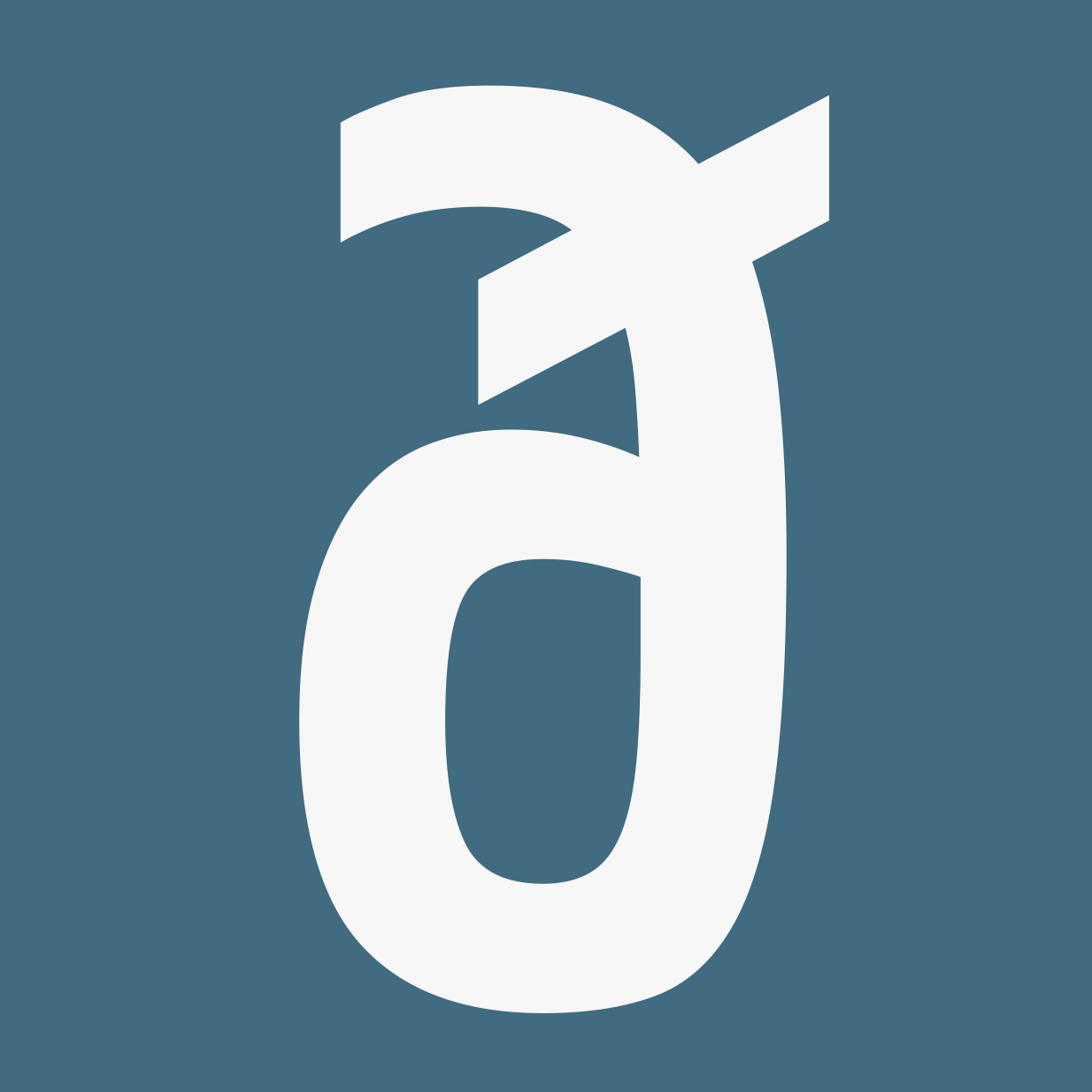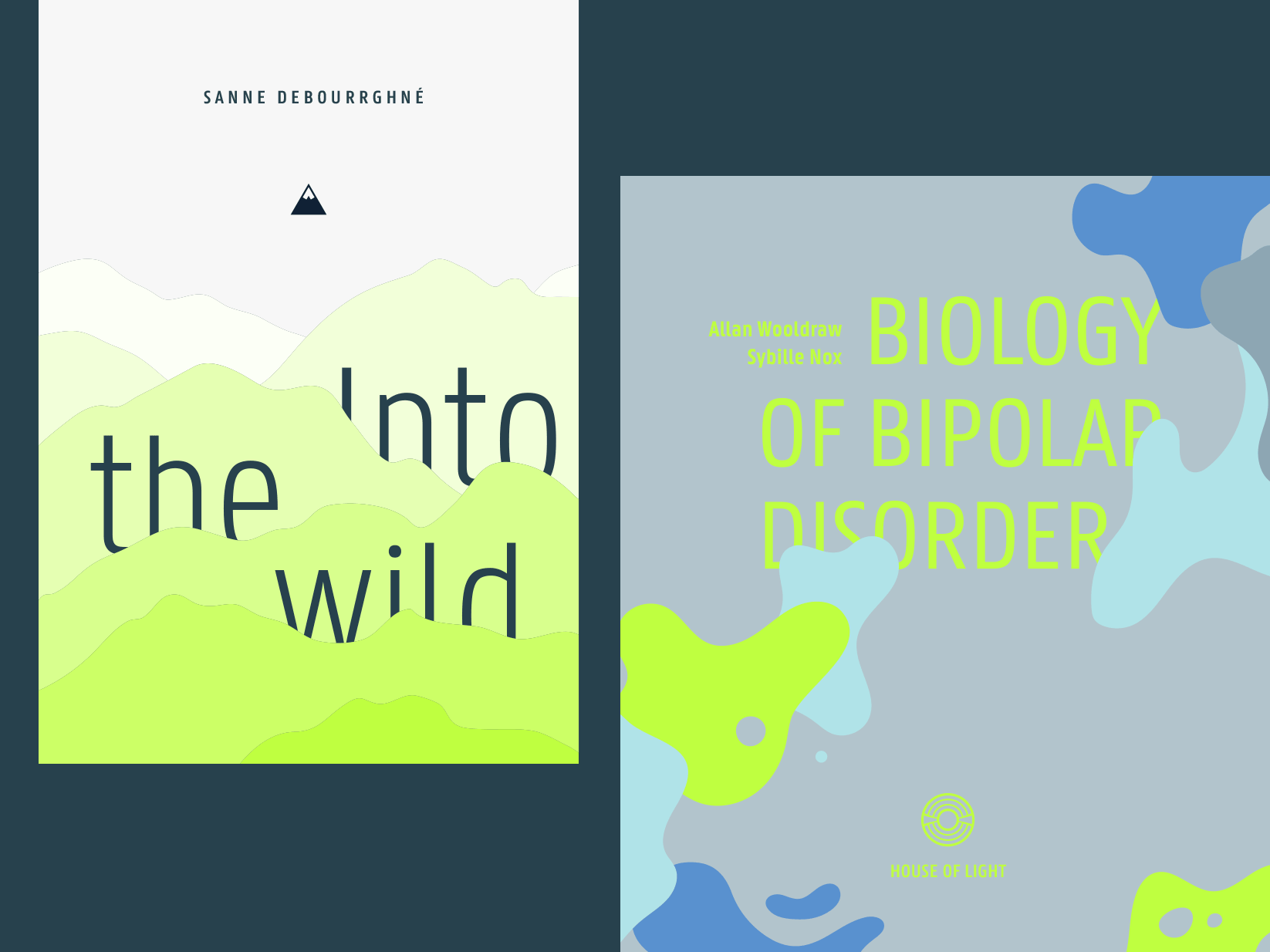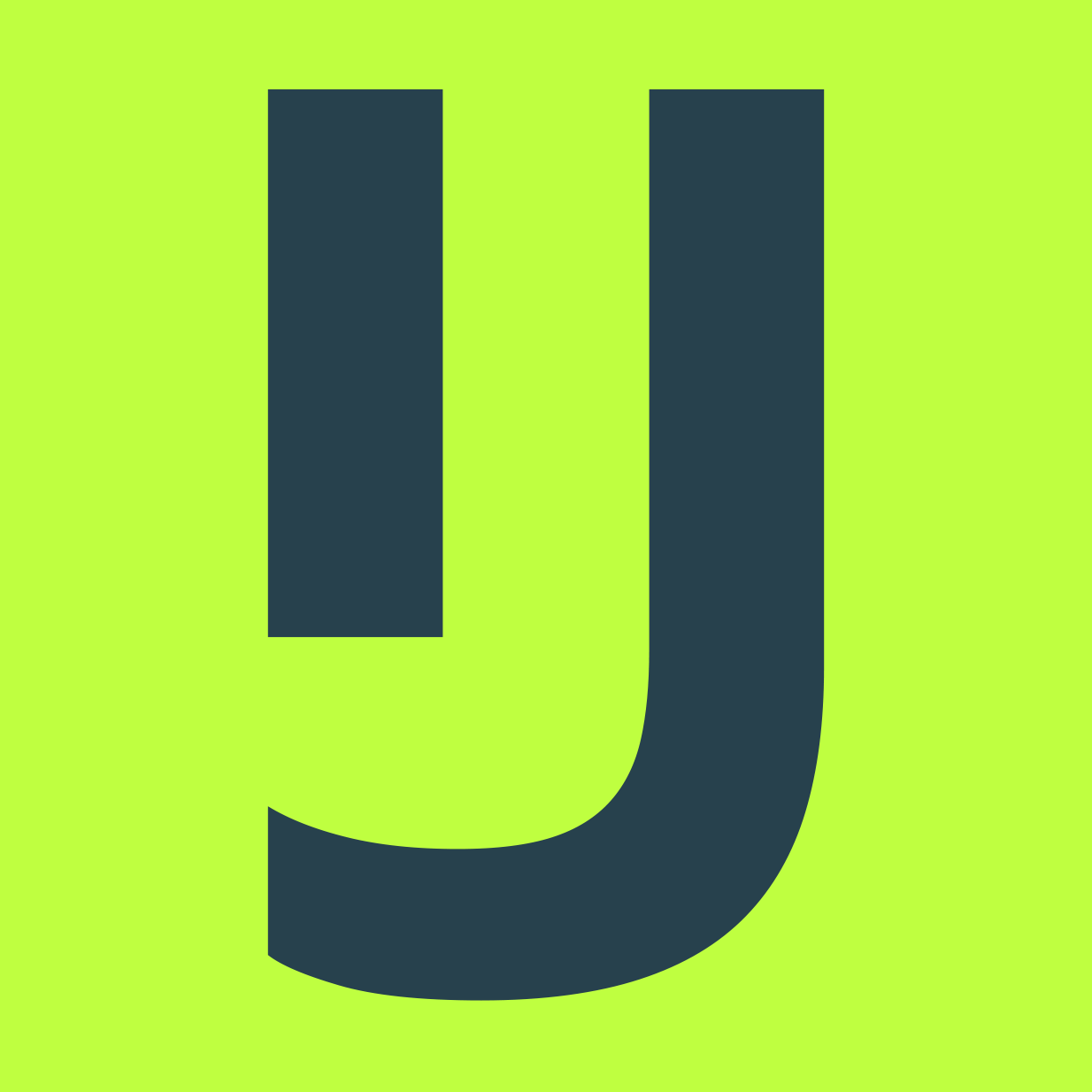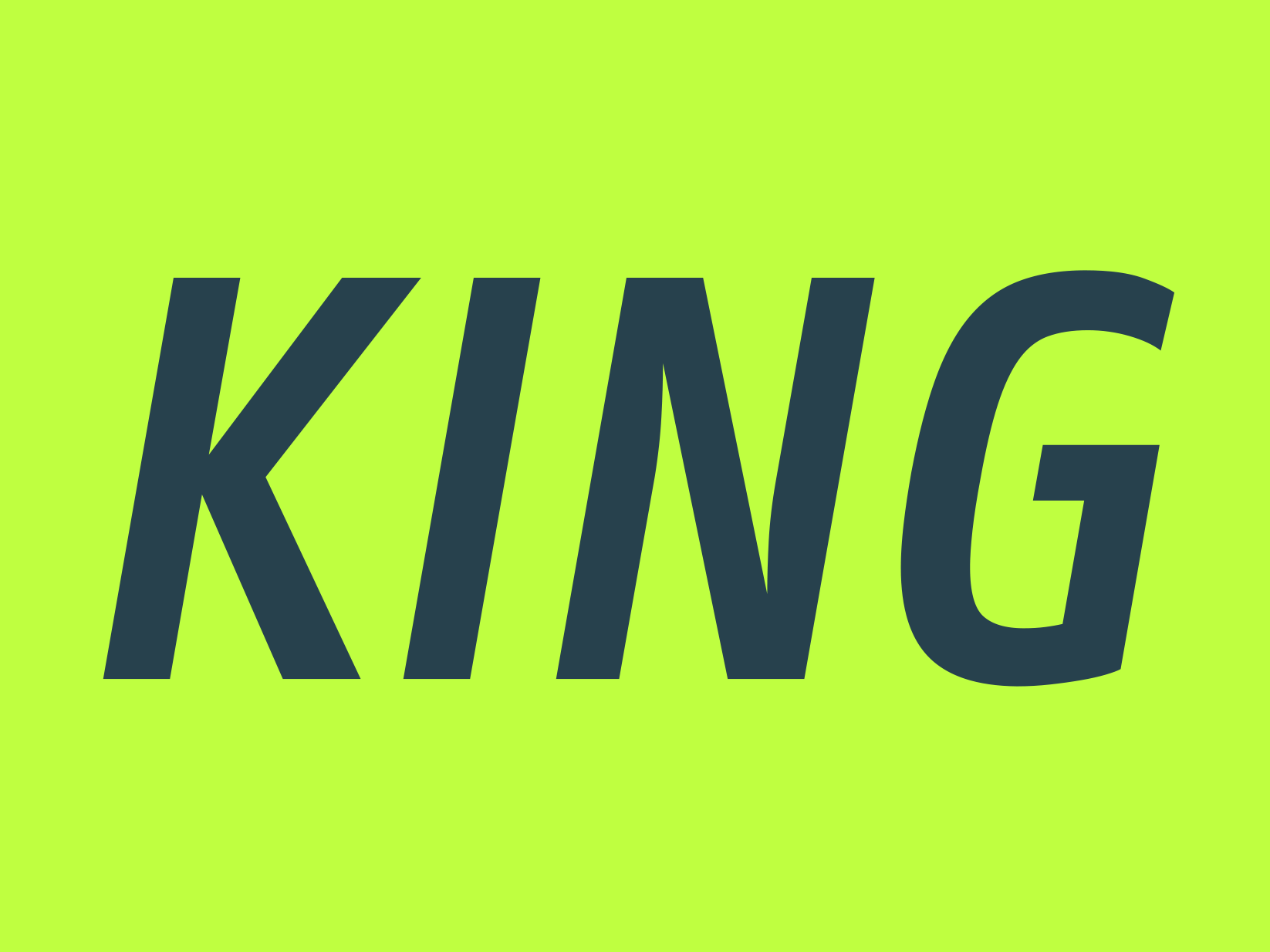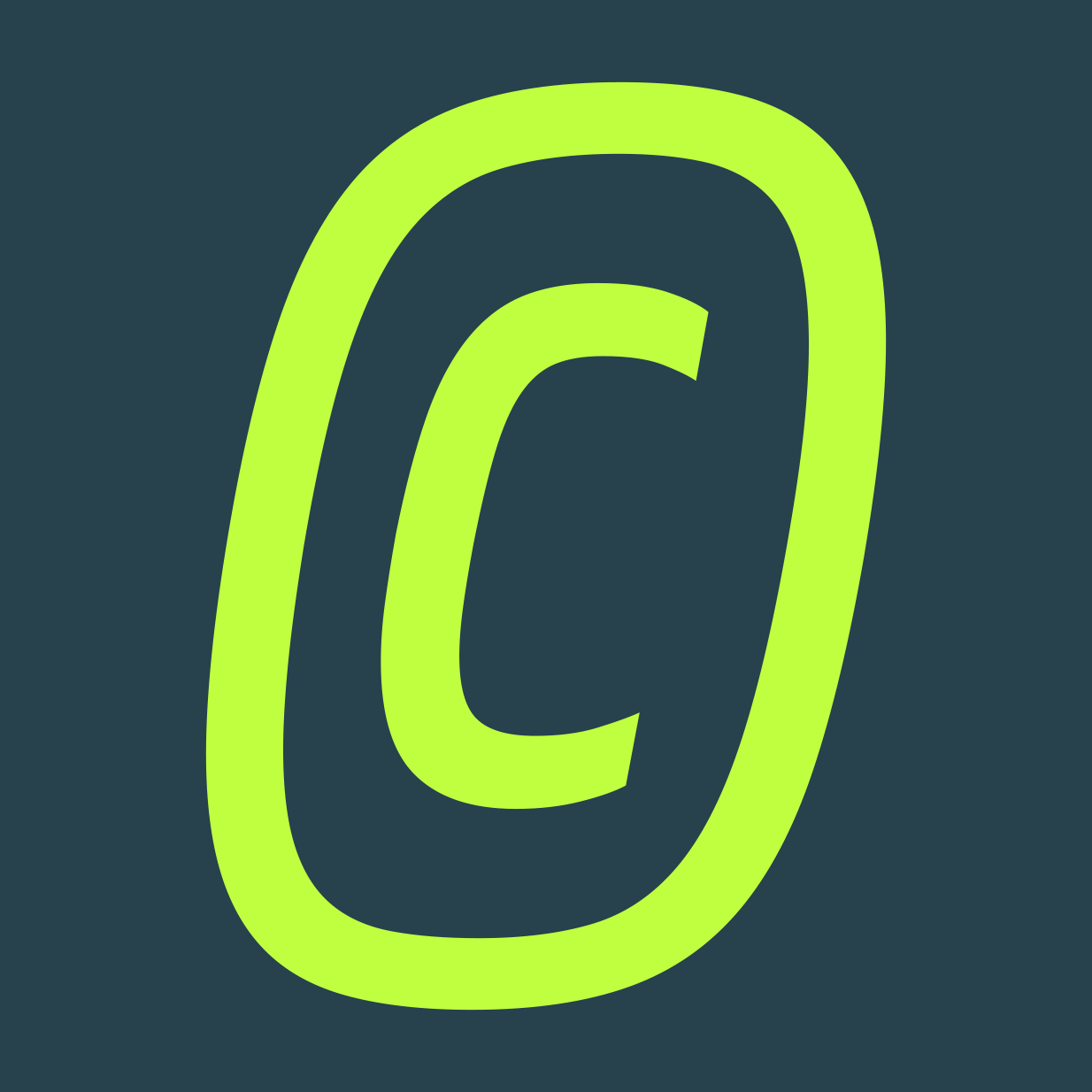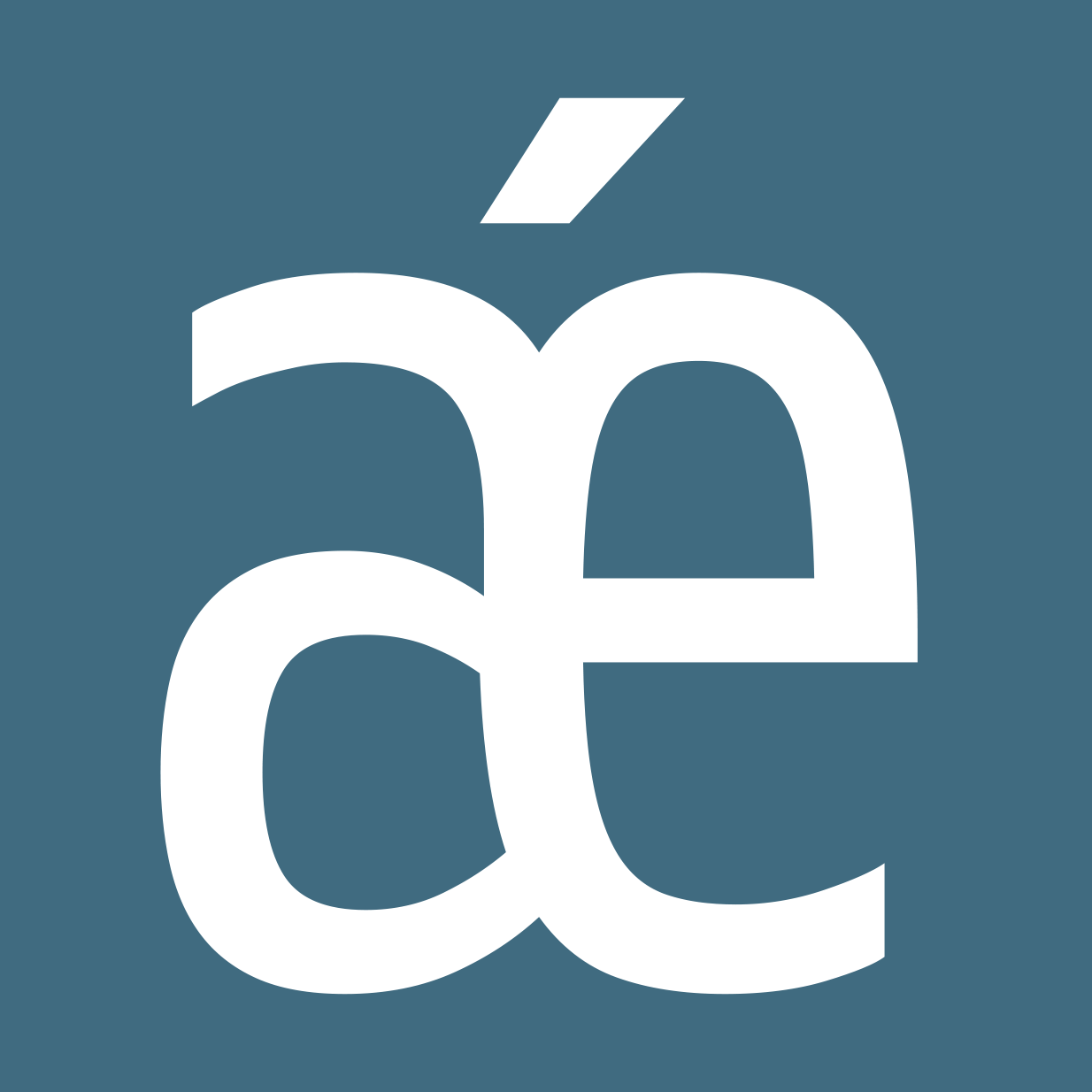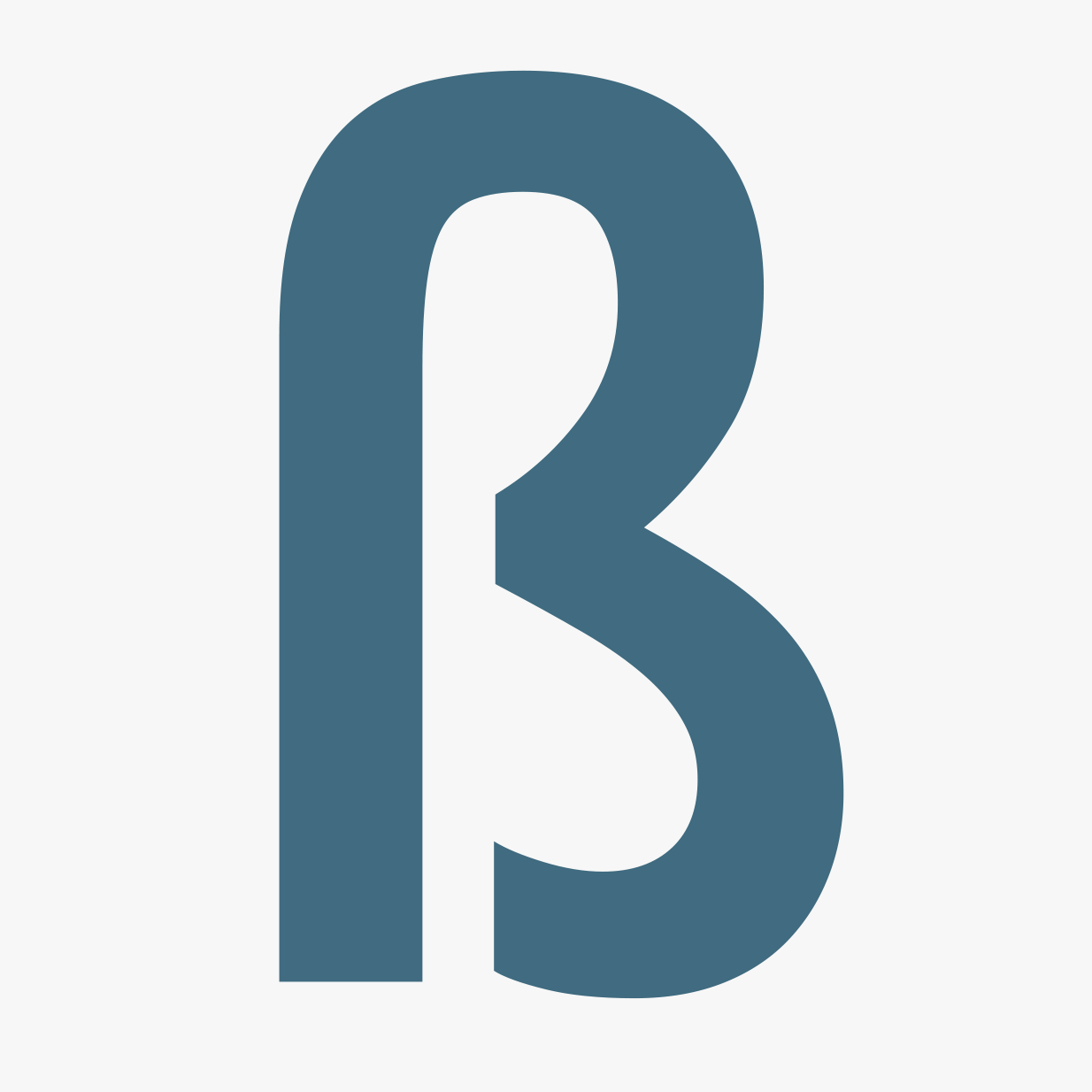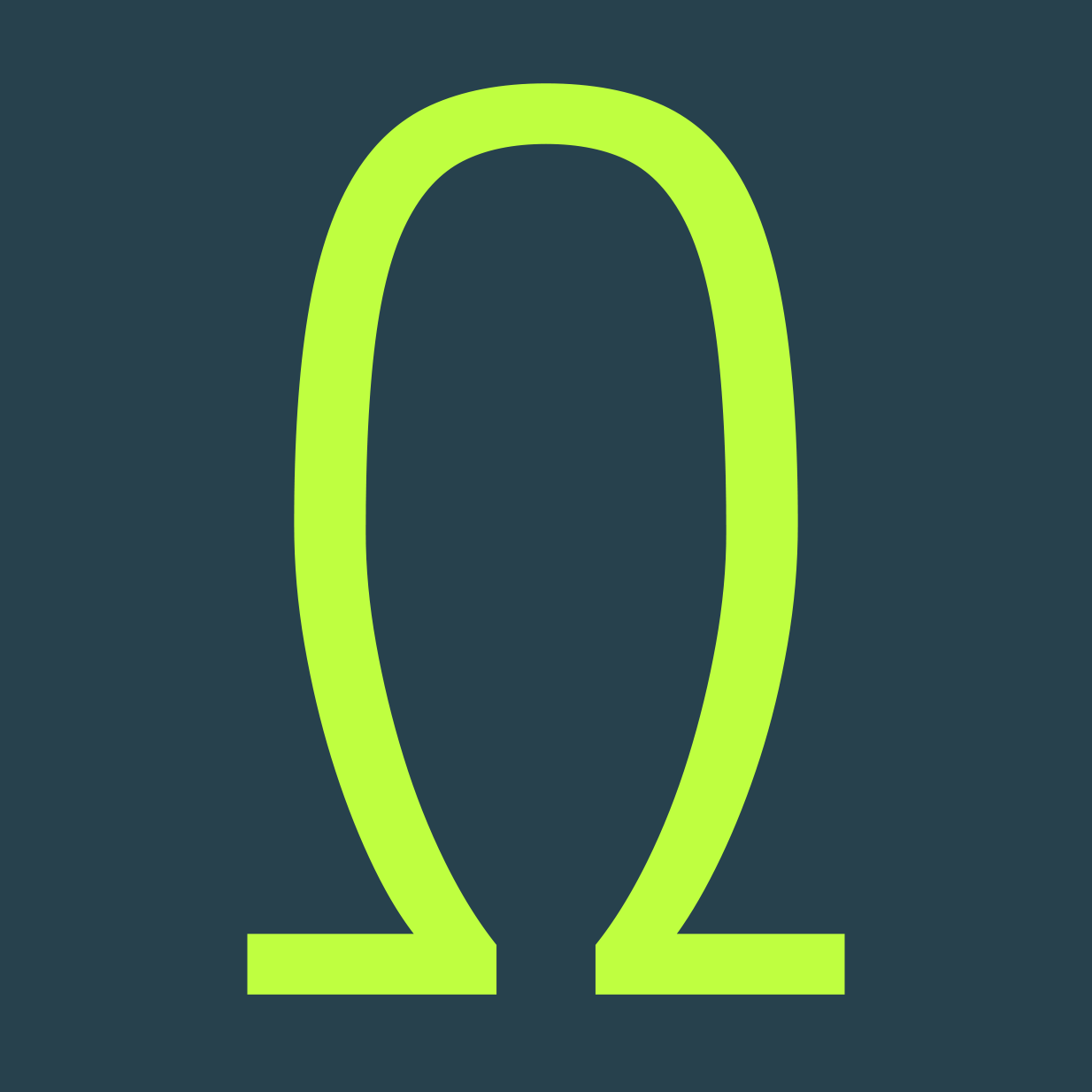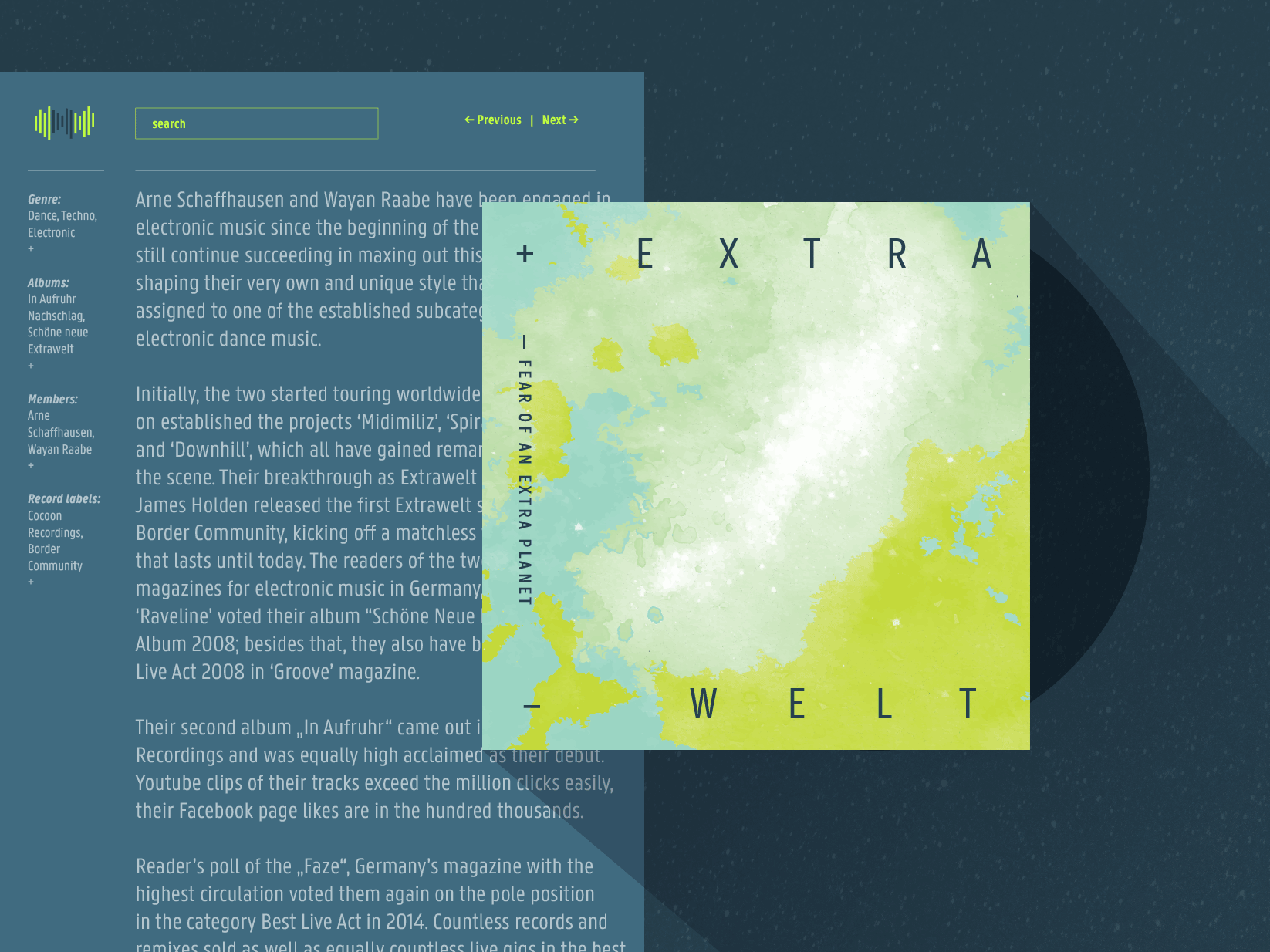
Panno Text
Panno Text is a reworking and extension of Panno Sign and is optimised for continuous text. Similar to its signage counterpart it has narrow proportions, a very large x-height and open counters. The letterforms are simple and robust with only minimal stroke contrast. Panno brings optimal functionality with a bit of fresh, warm air to applications where typefaces like DIN may feel too constructed or cold. It feels comfortable and adapts in many complex environments, be it editorial use, corporate design, in exhibitions or in manuals.
Compared to Panno Sign, many shapes in Panno Text have been adjusted and the spacing has been completely reworked to assure excellent legibility in small sizes. Furthermore, the family has been expanded into six finelly attuned weights and to complete the typographical palette, each weigth is now accompanied by true italics. Panno Text comes with an extended Latin character-set and several OpenType features that give access to fractions, different styles of numerals, and stylistic alternates for ‘a’, ‘g’, ‘y’ and ‘&’.
Designer
Pieter van Rosmalen